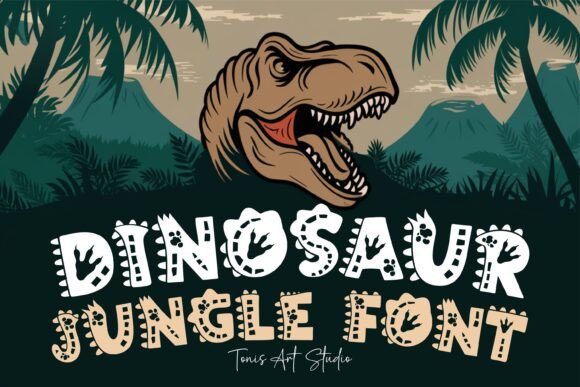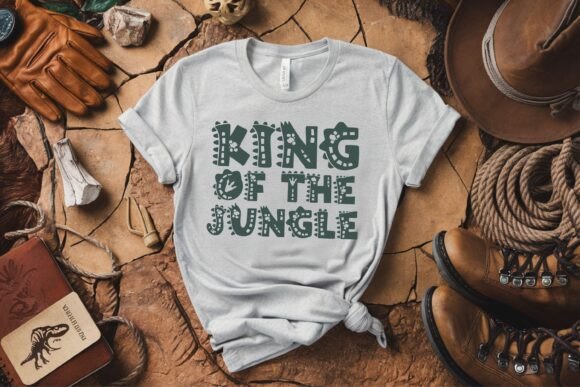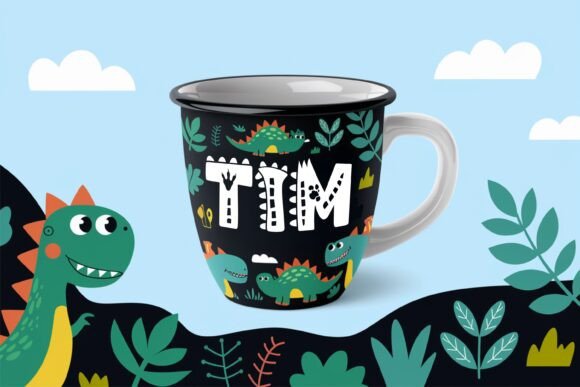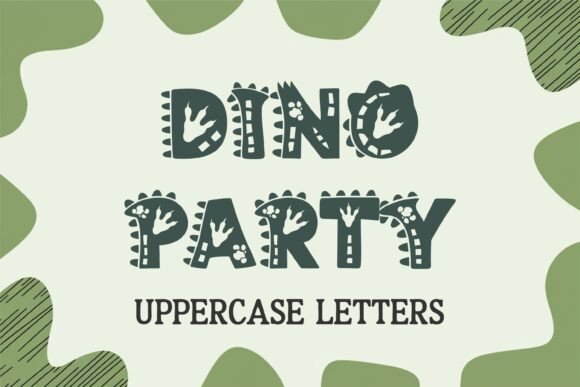
Elevate your designs with Dinosaur Jungle Font, a font that combines sophistication with readability. Introducing the Dinosaur Jungle Font—a playful typeface featuring dinosaur silhouettes and rugged details. Ideal for kids’ birthday invitations, nursery art, adventure books, t-shirts, and DIY crafts. Compatible with Cricut, Silhouette, and Procreate. Includes full alphabet, numbers, symbols, and bonus dino glyphs. Easy installation on Mac and Windows. Perfect for creating unique, prehistoric-themed designs.
Dinosaur Jungle Font’s playful, slightly rugged style makes it ideal for children’s branding, packaging, and posters, particularly those focused on adventure or nature themes. It also works well for short headlines and playful social media graphics. However, its decorative nature makes it unsuitable for body text or UI elements where readability is paramount. Avoid using it for large blocks of text.
Consider pairing Dinosaur Jungle Font with a clean sans-serif like Open Sans for a balanced contrast; the sans-serif provides readability for supporting text while the playful dinosaur font makes a statement. Alternatively, a simple serif font such as Lora could offer a touch of sophistication, tempering the font’s inherent exuberance.
The overall personality is energetic and friendly, perfectly suited to projects targeting a young audience or brands emphasizing fun and adventure.